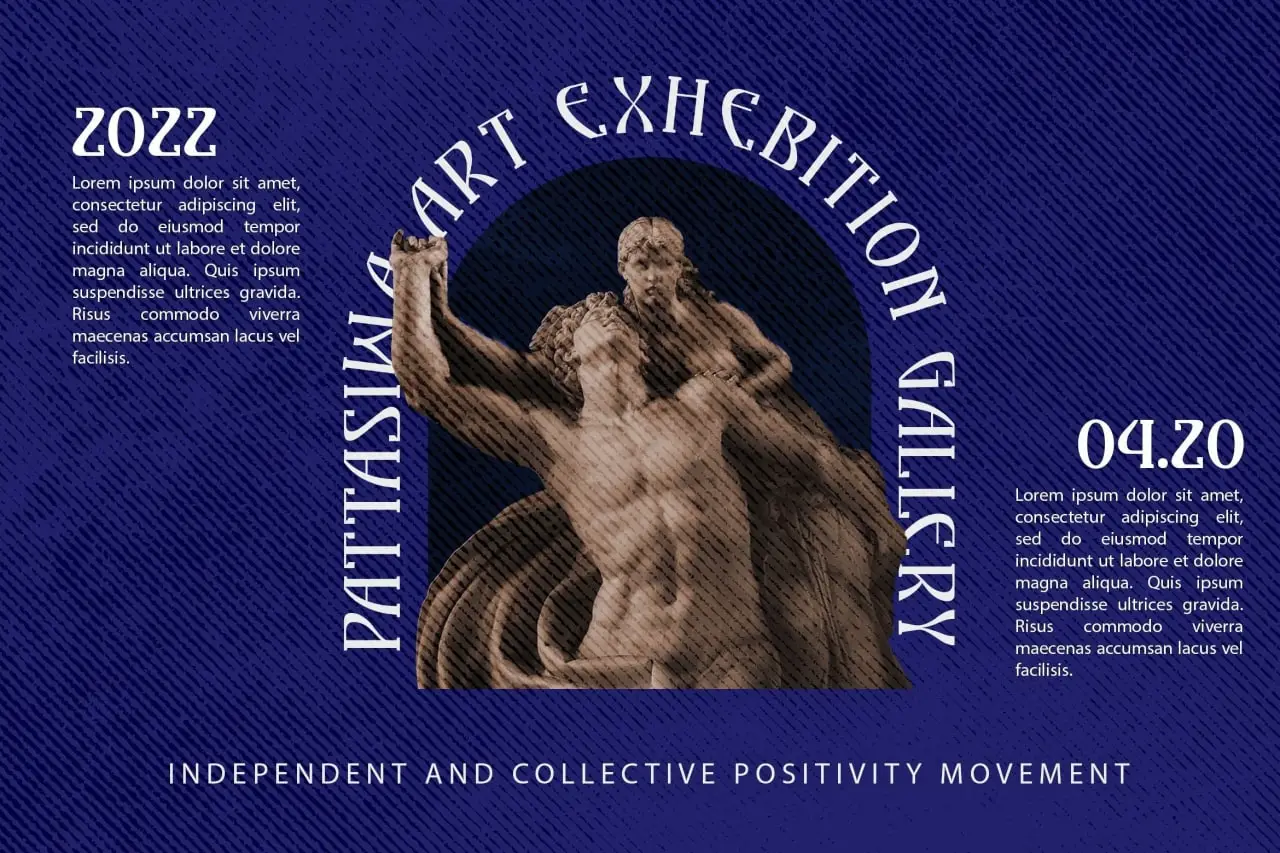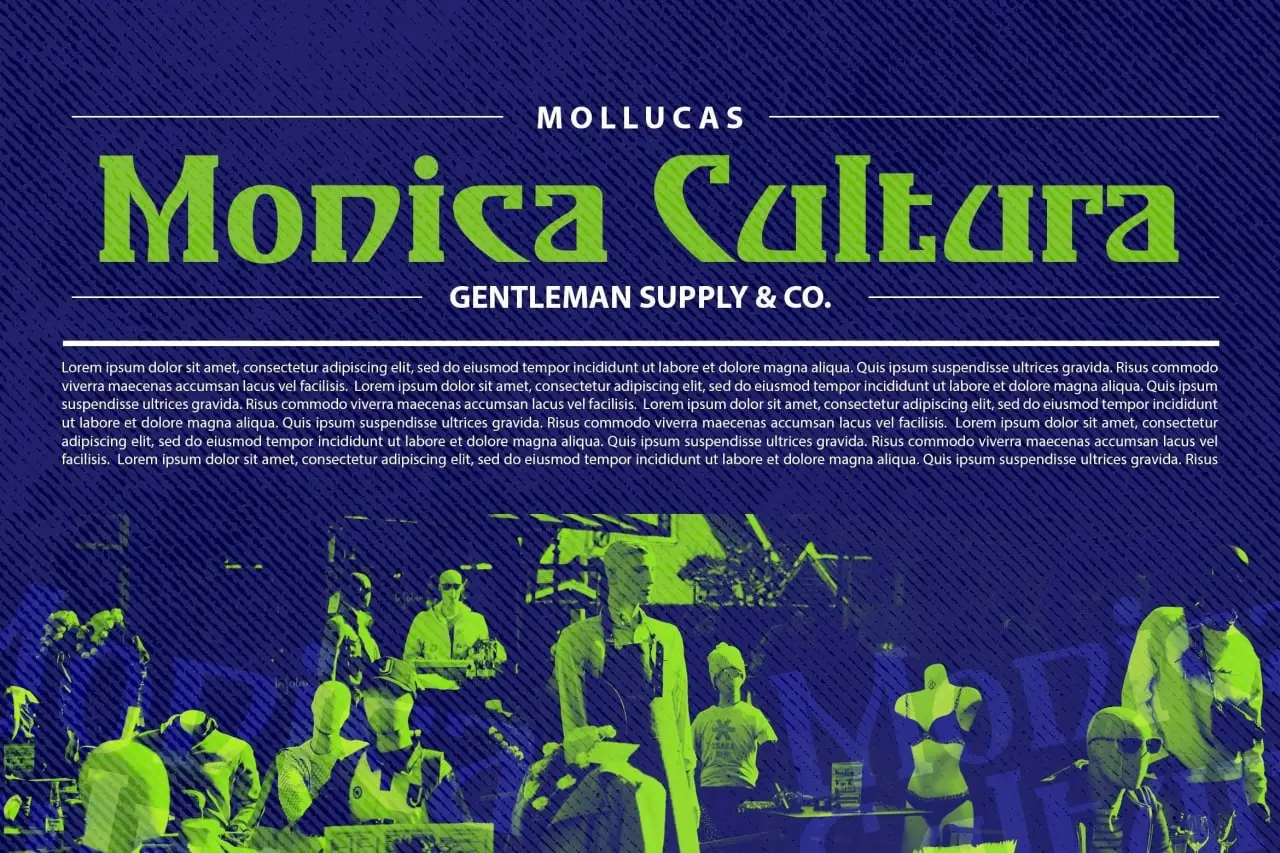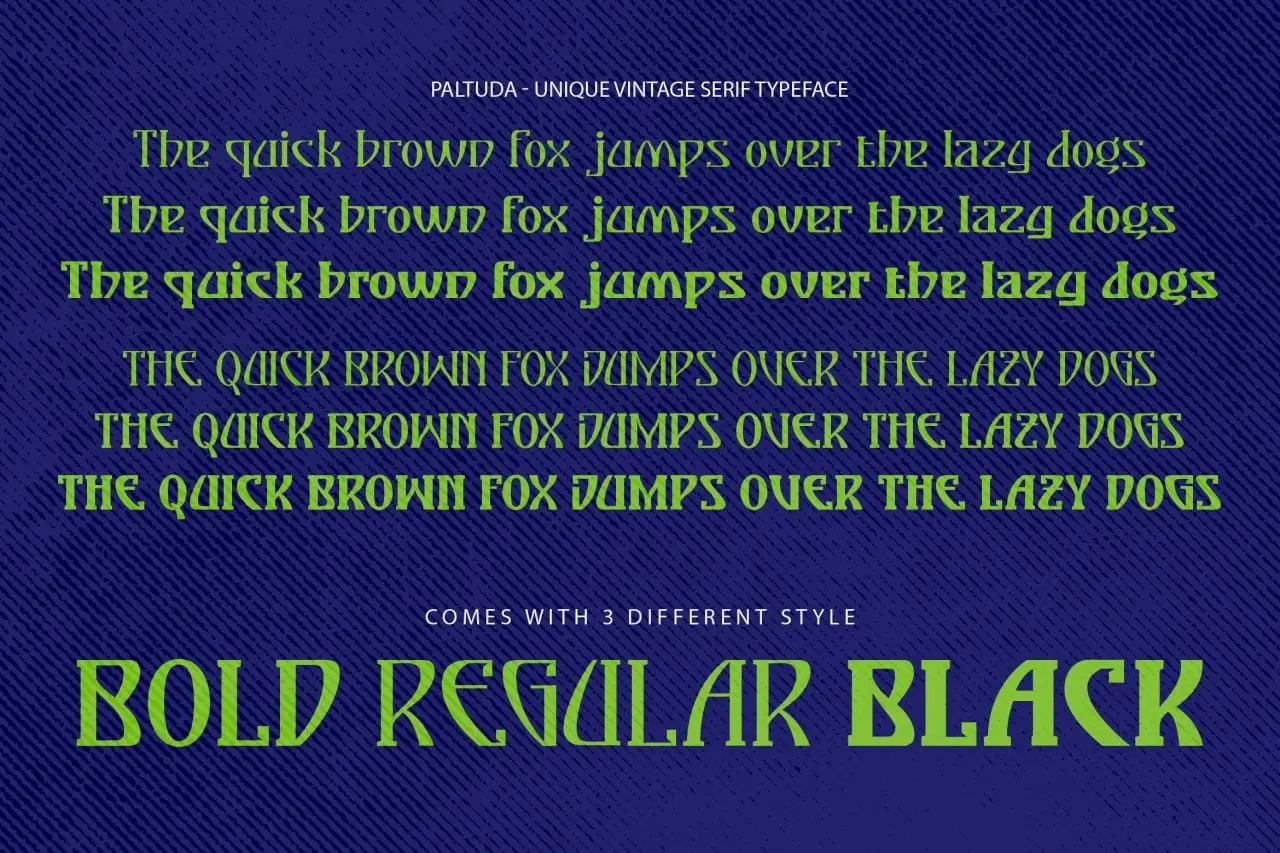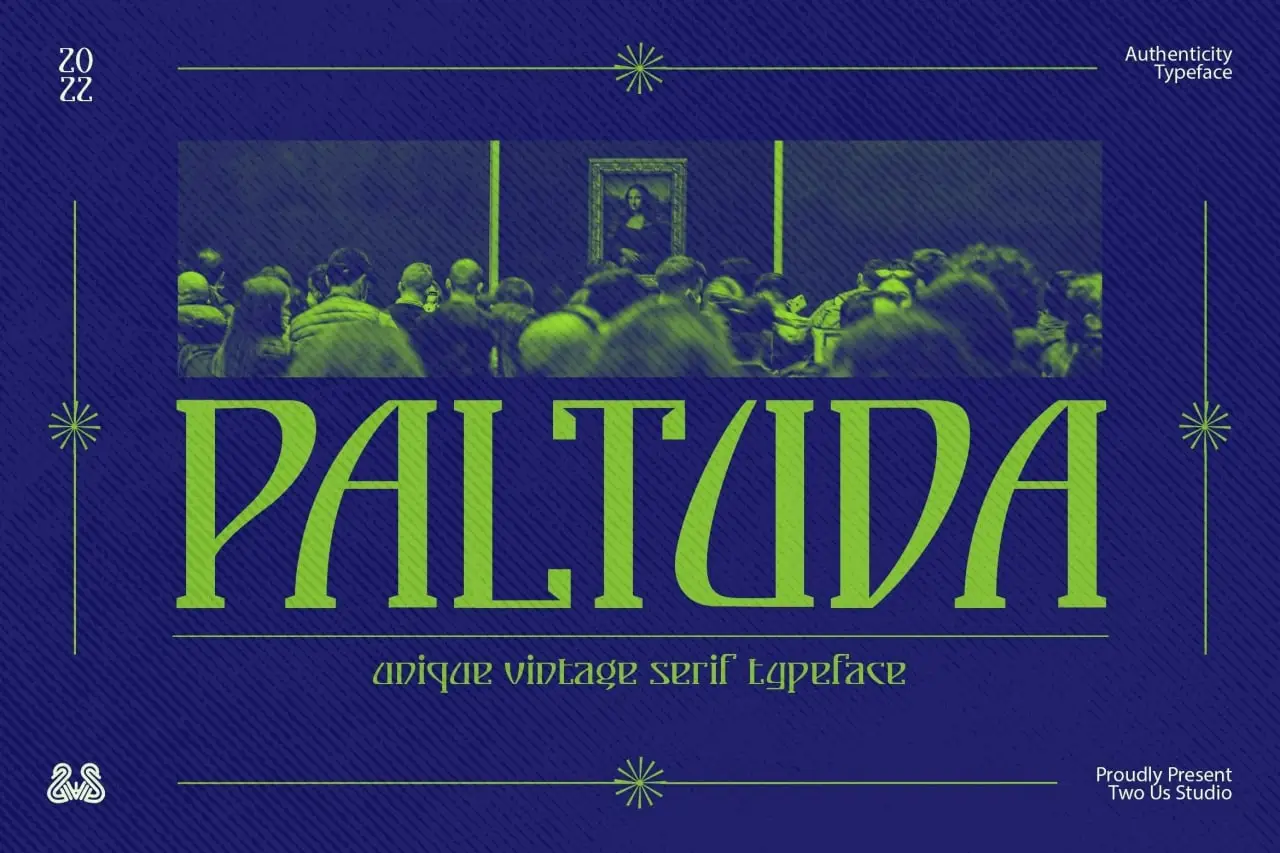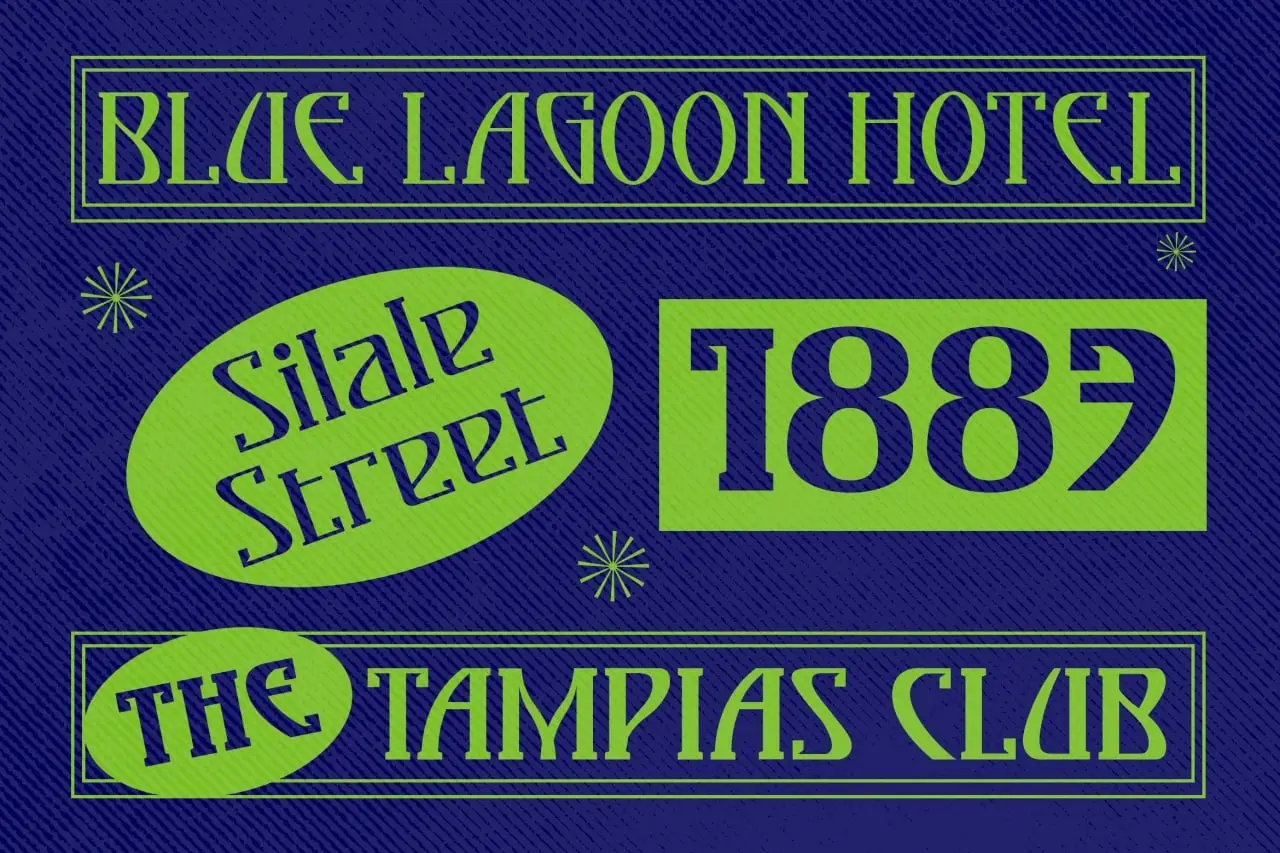
Paltuda Font By Two Us Studio
The Paltuda Font by Two Us Studio is a unique typeface that blends modern aesthetics with a touch of elegance. This font is designed to add character to your projects, making it ideal for branding, logos, web design, and print materials.
• Perfect for creating eye-catching logos and branding materials.
• Use in web design for a stylish and contemporary look.
• Great for print projects such as business cards and brochures.